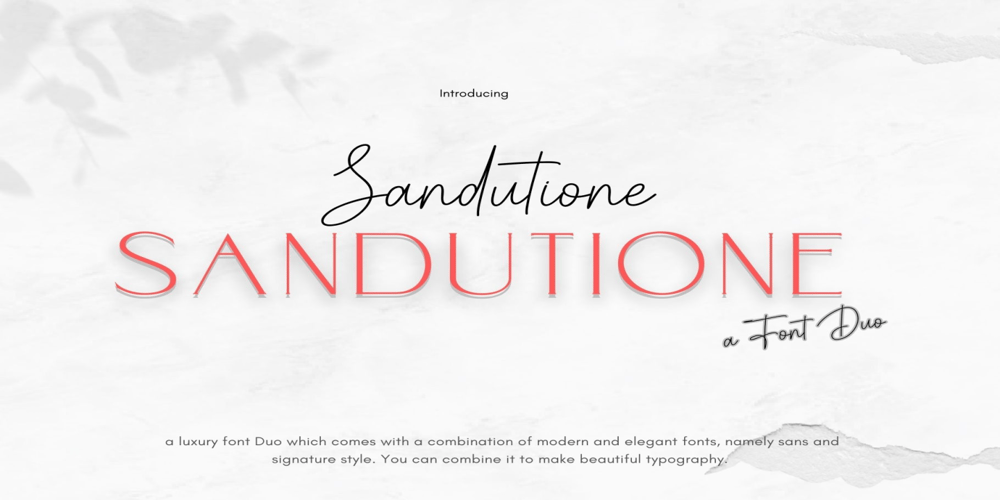
Sandutione Font Family was designed by Hermann Zapf and published by Dream Font. Sandutione contains 2 styles and family package options. Sandutione is a lovely duo font (script and sans serif). It will add a luxury spark to any design project that you wish to create! This font is PUA encoded which means you can access all of the amazing glyphs and ligatures with ease!